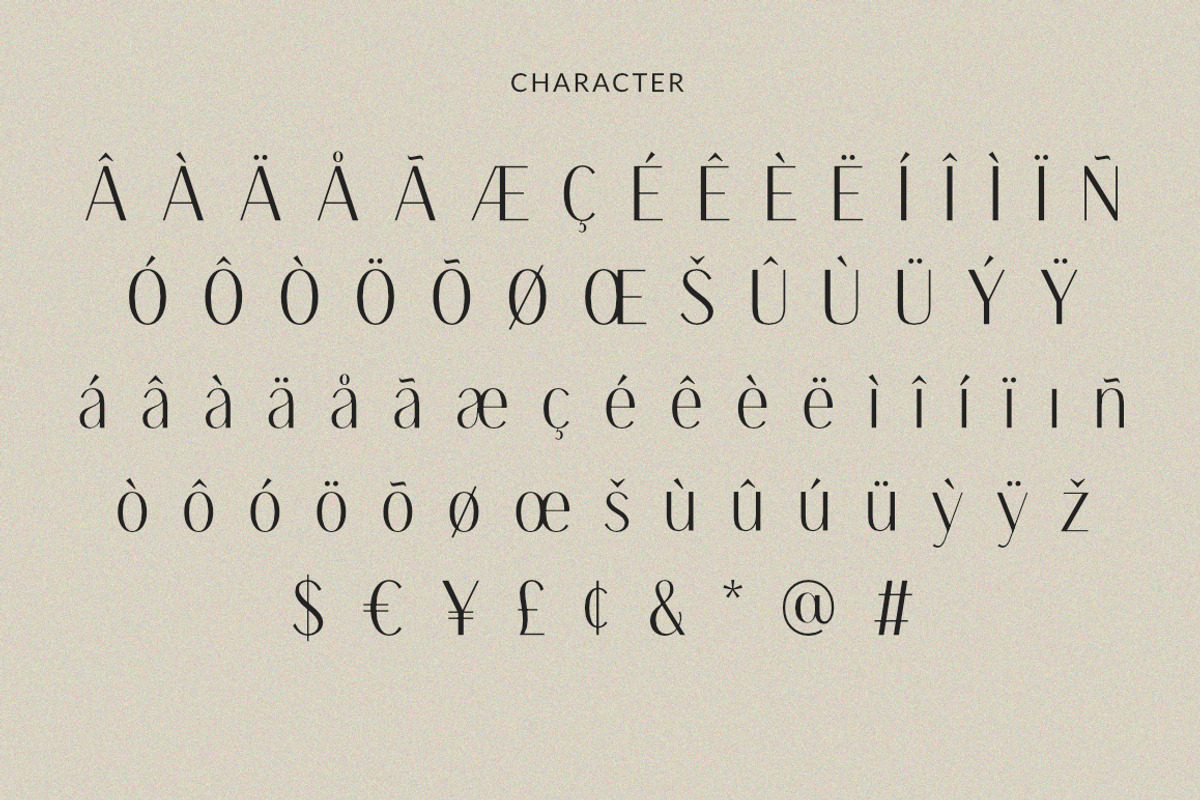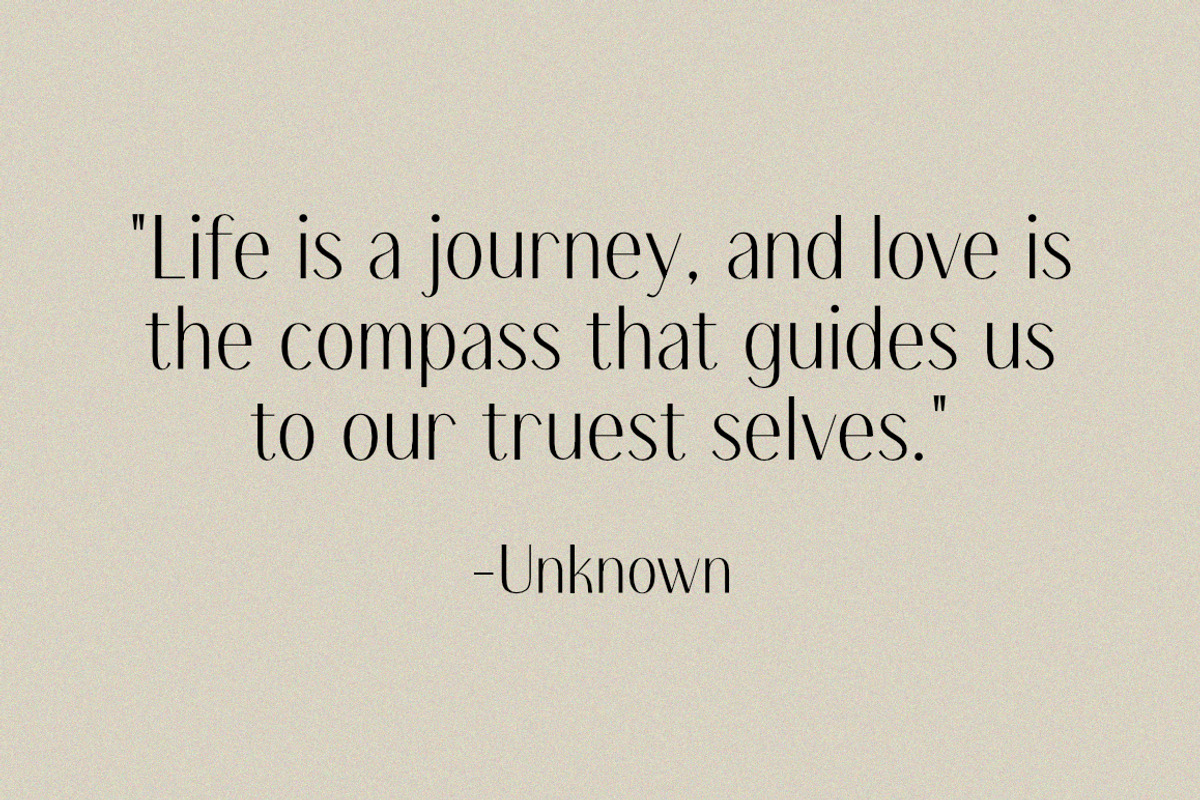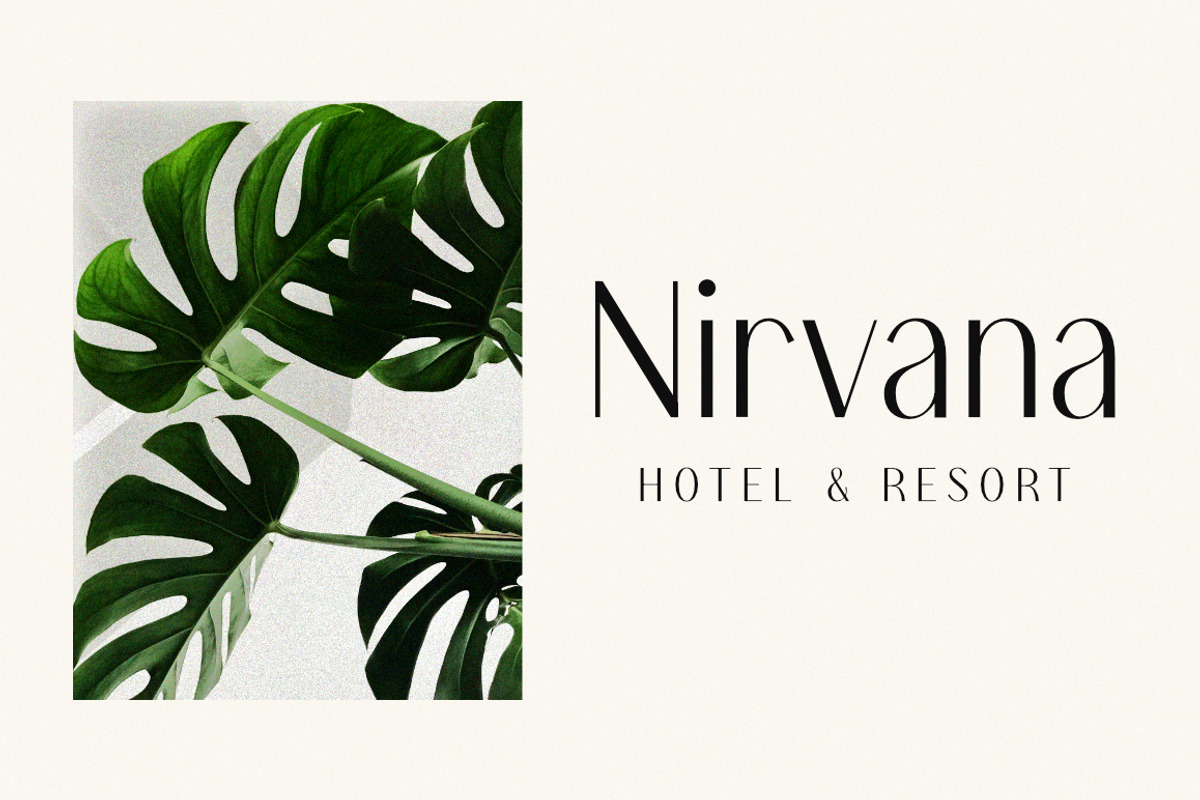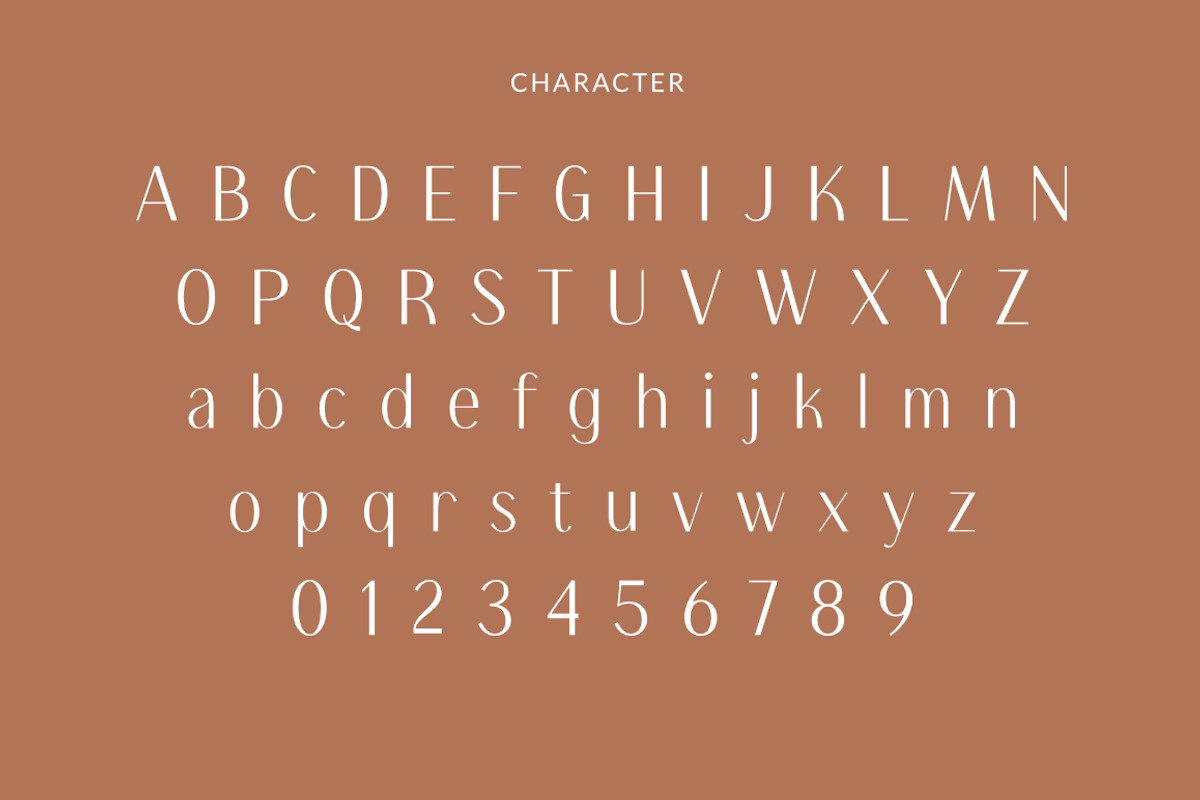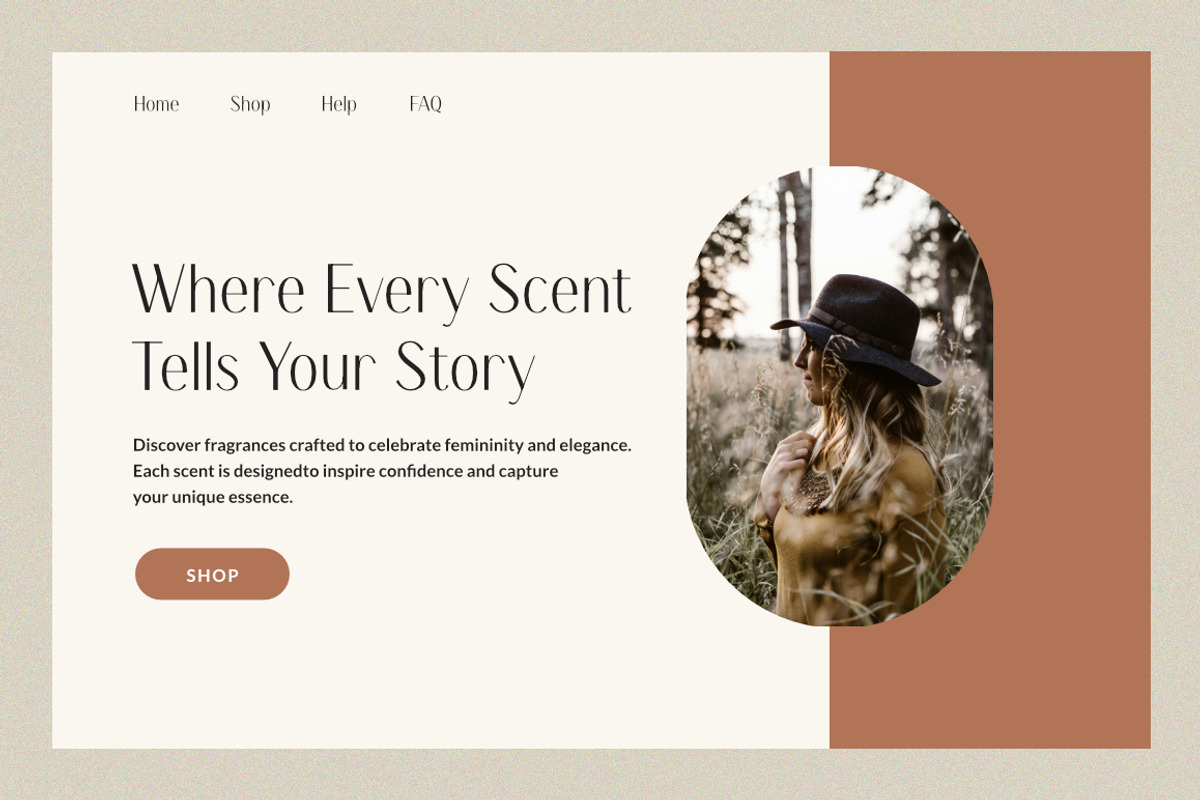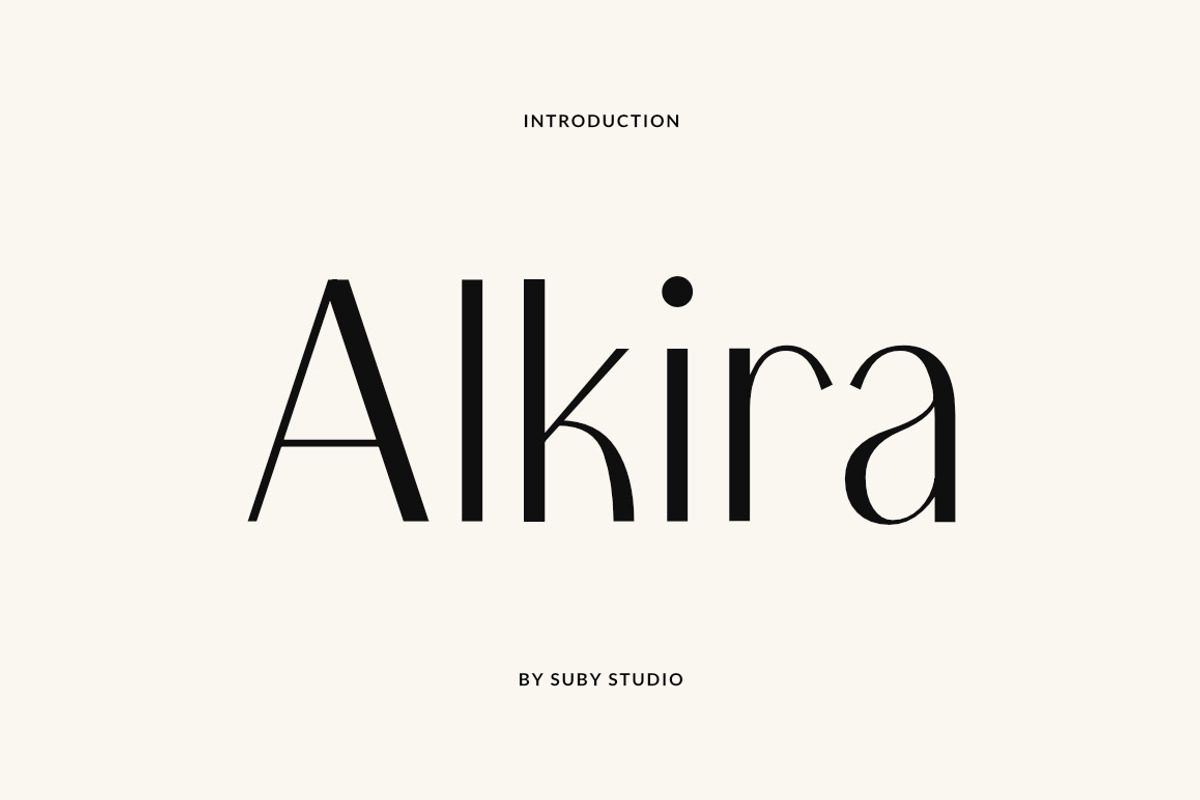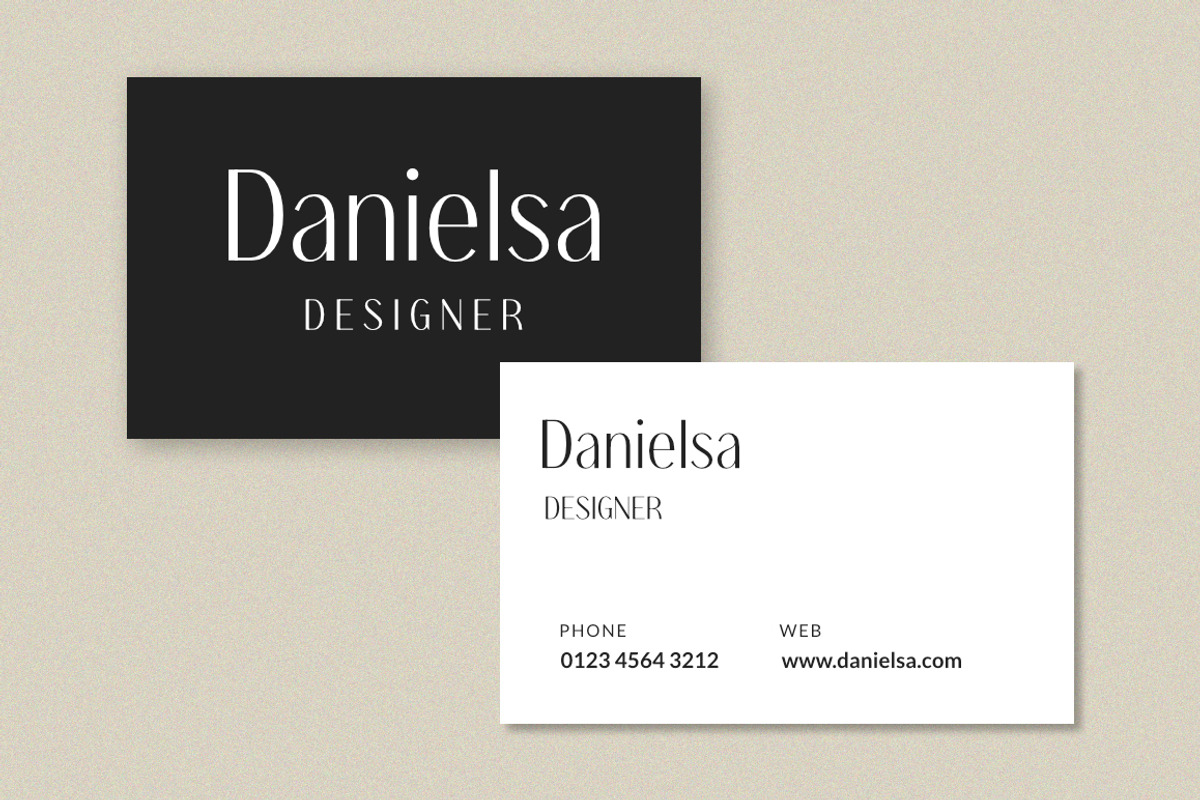
Alkira Elegant Typeface
Alkira is a modern and elegant sans serif font. Perfect for logos, branding, website headers, invitations, and more.
Alkira Features:
- Numbers & symbols